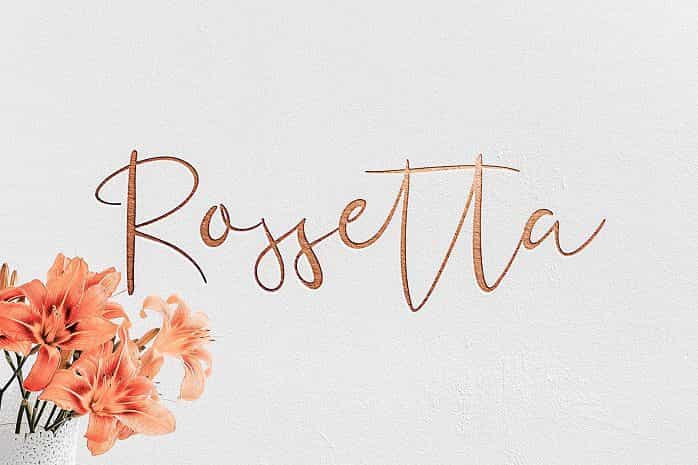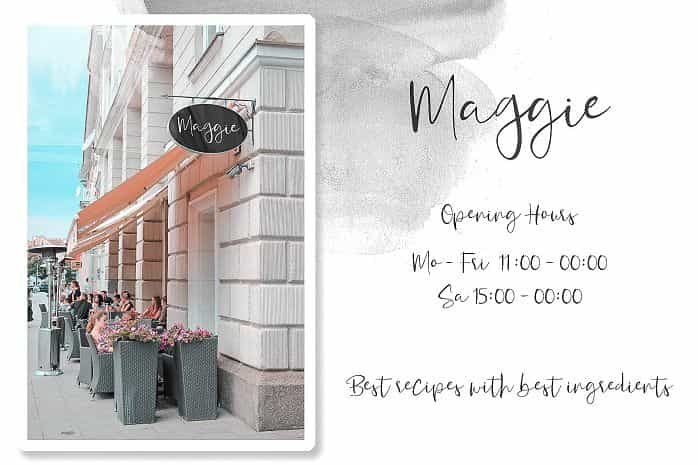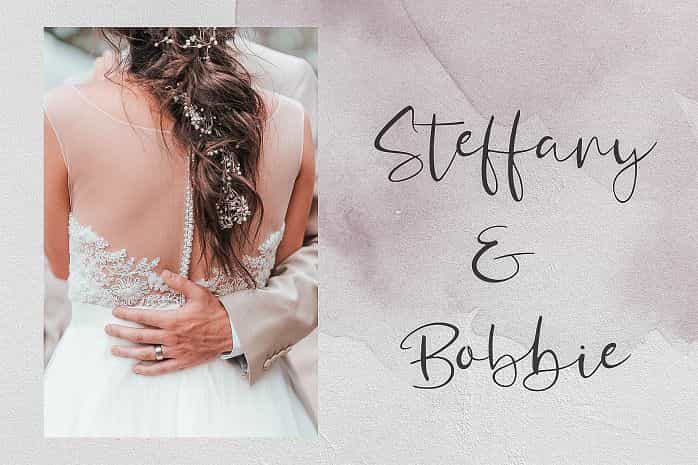
Introducing Rossetta Font. Rossetta It makes you to create the perfect and easy hand-lettering just in a flash. It is perfect for the logo, quotes, wedding invitation and product label/packaging. It can also be used in fashion lettering and advertising as well as on posters and greeting cards.